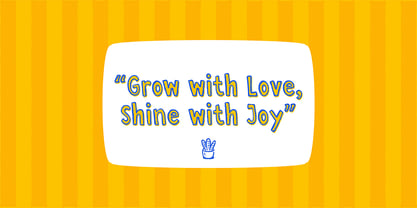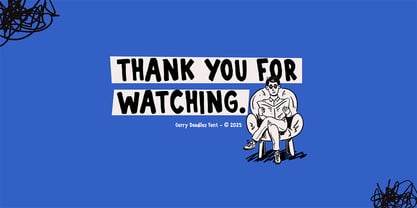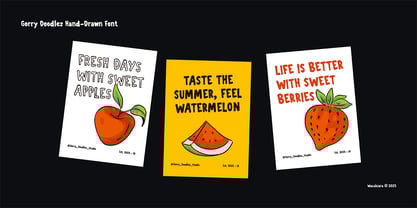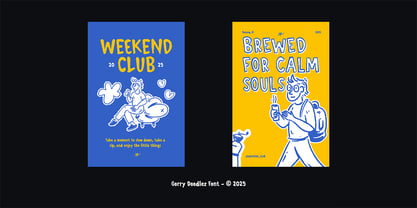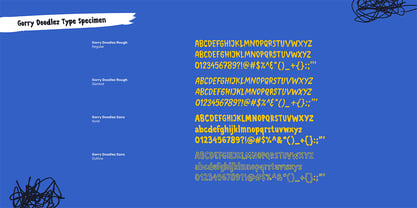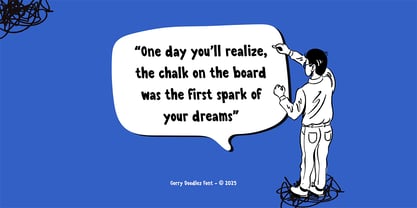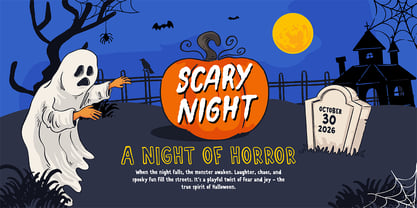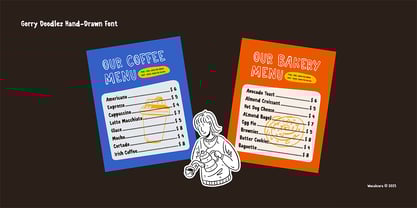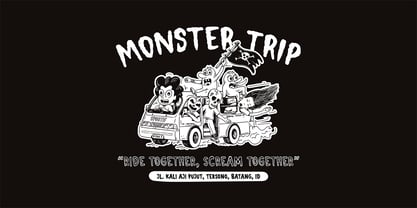
Gorry Doodlez
The Gorry Doodlez Font Family was designed by Hamam Jauhari and published by Wacaksara co. Gorry Doodlez contains 4 styles and family package options. More about this family
Gorry Doodlez is a fun and playful hand-drawn font that brings a cheerful, doodly spirit to your creative projects. Designed with organic strokes and imperfect shapes, this cartoon style display font adds a warm, human touch to every word. Perfect for children's book, posters, packaging, logo design, creative branding, menu design, quotes, and more. Gorry Doodlez makes your design look friendly, casual, and full of personality. The font family comes in two styles: Giving you flexibility to mix and match for different moods or effects. Each letter is hand-crafted to look lively and imperfect in the best way, making it a great choice for projects that want to feel authentic, handmade, and full of character. Festures : Opentype features, Numerals & Punctuations, Accents ( Multilingual Characters )
Designers: Hamam Jauhari
Foundry: Wacaksara co
Gorry Doodlez